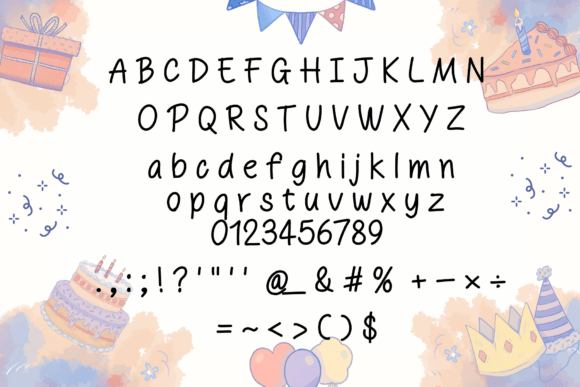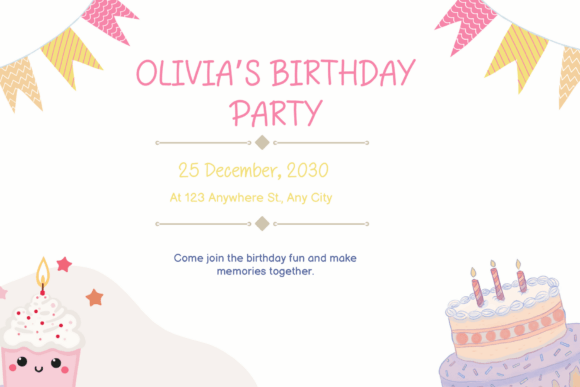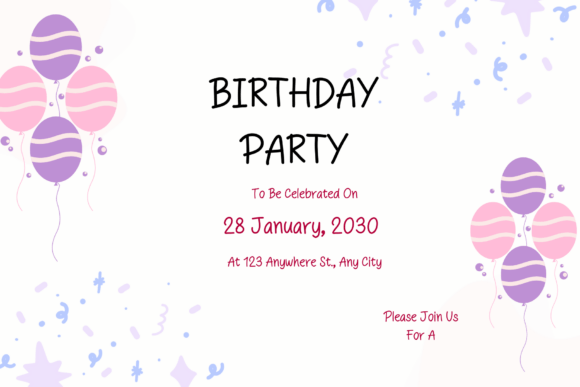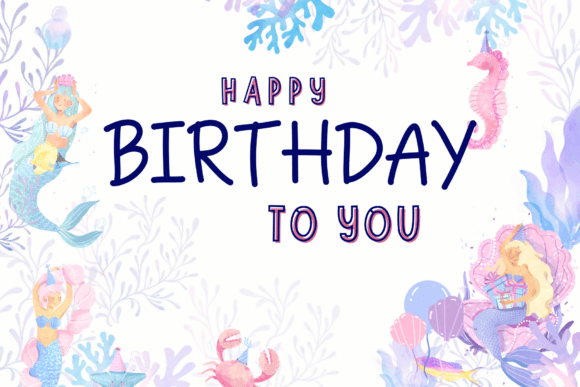
Introducing Birthday Font: The Perfect Handwritten Style for Your Celebratory Needs
Are you looking for a unique and playful font to make your designs stand out? Look no further than Birthday Font, a charming handwritten font that’s perfect for a variety of creative projects. In this article, we’ll explore the features and uses of Birthday Font, and show you how to make the most of this versatile typeface.
What is Birthday Font?
Birthday Font is a beautiful handwritten font that’s designed to bring a touch of personality and whimsy to your designs. With its flowing script and carefree feel, this font is ideal for creating a wide range of projects, from personal notes and diaries to professional designs and marketing materials.
What Can I Use Birthday Font For?
The possibilities are endless with Birthday Font! Here are just a few ideas to get you started:
- Handwritten notes and diaries: Add a personal touch to your journaling and note-taking with Birthday Font’s charming script.
- Greeting cards and invitations: Create one-of-a-kind birthday cards, invitations, and party decor with this delightful font.
- Banners and signs: Use Birthday Font to create eye-catching banners and signs for parties, events, and promotions.
- Social media posts: Add a playful touch to your social media posts and stories with Birthday Font’s fun and carefree style.
- Mugs, cards, and shirts: Create unique and personalized gifts with Birthday Font’s versatile design.
- Stationery and paper crafts: Use Birthday Font to add a touch of elegance and sophistication to your stationery and paper crafts.
Why Choose Birthday Font?
So why choose Birthday Font for your next project? Here are just a few reasons:
- Unique and playful style: Birthday Font’s handwritten script is sure to stand out from the crowd and add a touch of personality to your designs.
- Versatile and adaptable: Whether you’re creating a personal project or a professional design, Birthday Font is versatile enough to adapt to any style or theme.
- Easy to read and write: Despite its playful feel, Birthday Font is surprisingly easy to read and write, making it perfect for body text and longer designs.
Tips and Tricks for Using Birthday Font
Here are a few tips and tricks to help you get the most out of Birthday Font:
- Experiment with colors and textures: Add an extra layer of depth and interest to your designs by experimenting with different colors and textures.
- Mix and match with other fonts: Don’t be afraid to combine Birthday Font with other fonts to create a unique and eye-catching design.
- Pay attention to spacing and alignment: Make sure to adjust the spacing and alignment of your text to create a clean and polished design.
Birthday Font is a charming and versatile handwritten font that’s perfect for designers, crafters, and anyone looking to add a touch of personality to their projects. With its unique style, adaptability, and ease of use, this font is sure to become a favorite in your design arsenal. So why wait? Download Birthday Font today and start creating your own unique and celebratory designs!
Whether you’re a seasoned designer or a crafty DIY enthusiast, Birthday Font is the perfect choice for any project that requires a touch of whimsy and fun. So go ahead, get creative, and make your designs shine with Birthday Font!